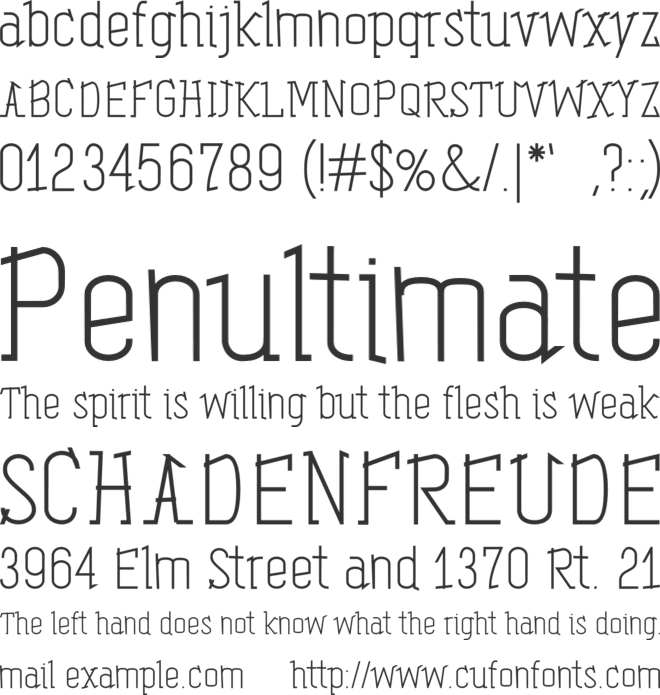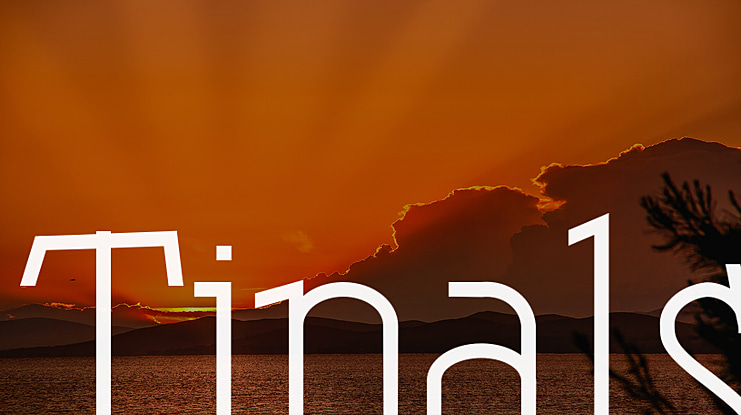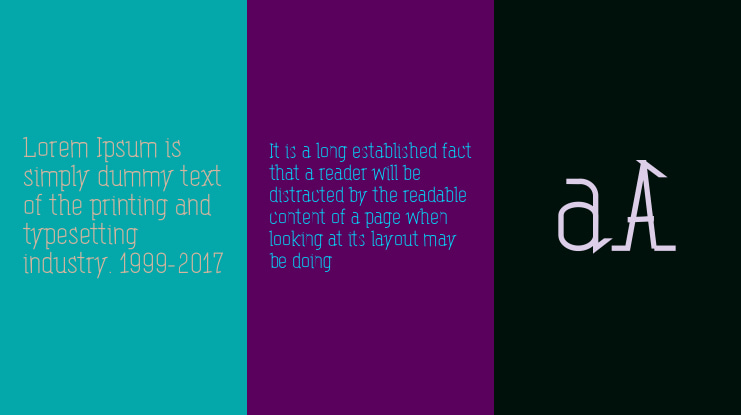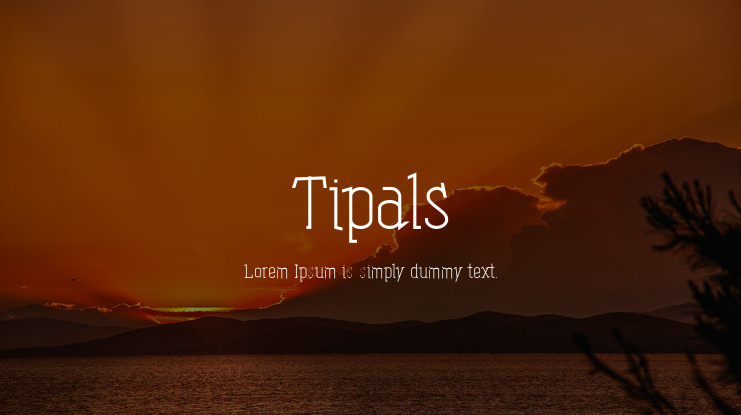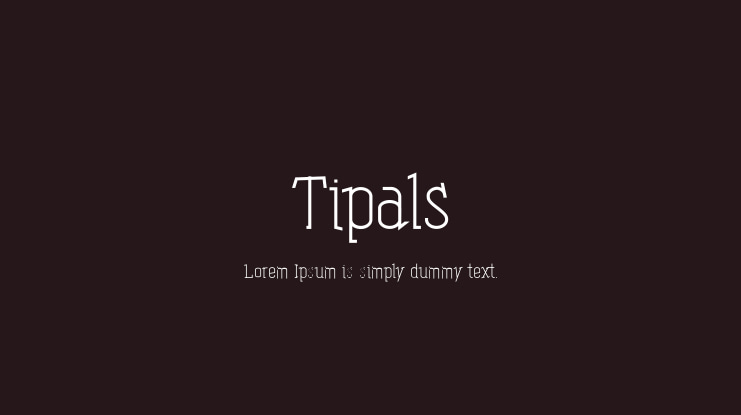
Tipals Font
Introducing Tiplas font that’s specially designed to fulfill all designers need. It’s ideal font to design any type of historic, quotations or books cover. You can use this font to make your designs very attractive and unique. It can also be used for branding and can take your graphic design projects to the next level.